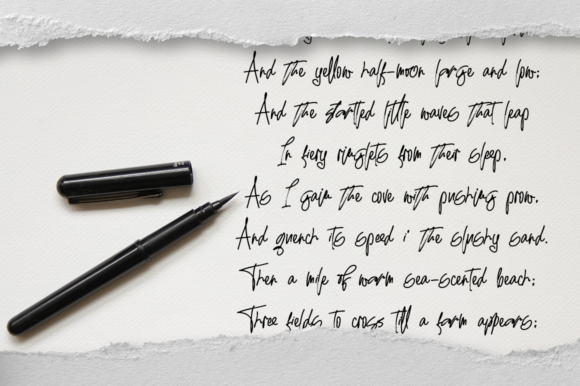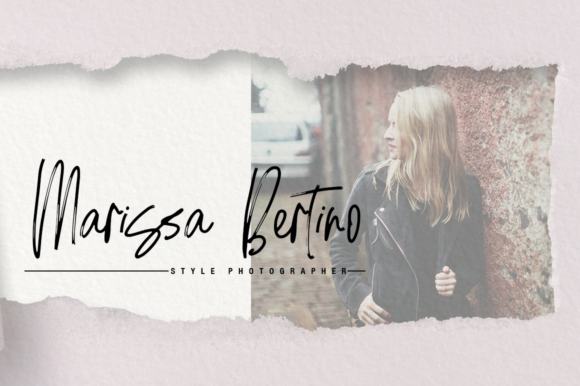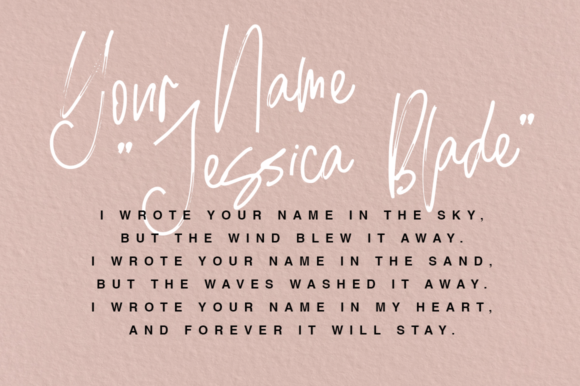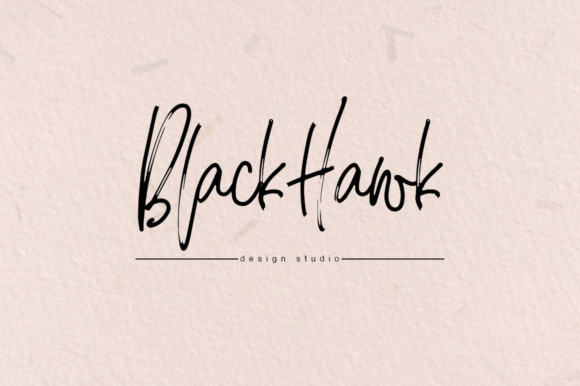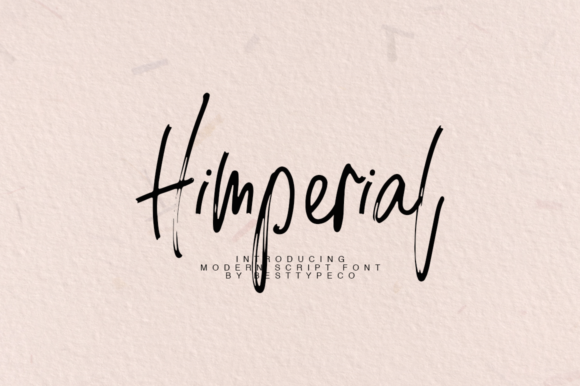
Introduction to Himperial Font
As a designer, there’s nothing quite like the thrill of discovering a new font that perfectly captures the essence of your creative vision. For me, that moment came when I stumbled upon the Himperial Font – a light and breezy handwritten font with a unique charm that instantly spoke to my soul.
There’s something special about the organic feel of Himperial Font that makes it an instant favorite among designers. Whether you’re working on a high-quality design project or just need a reliable design resource, this font is sure to impress. With its transparent background and smooth lines, it’s perfect for creating visually appealing graphics, logos, and typography that stand out from the crowd.
Key Features of Himperial Font
- Unique, modern design with a transparent background for versatility
- Perfect for digital and print projects, including logos, branding, and more
- Includes a comprehensive character set, including uppercase and lowercase letters, numbers, and punctuation
- Supports multilingual typography, making it suitable for international creative projects
Honest Review: Himperial Font
As a designer, I’m always on the lookout for high-quality design resources to elevate my creative projects. Recently, I stumbled upon the Himperial Font, and I’m excited to share my honest review with you.
Here’s what I love about the Himperial Font:
- ✨ Elegant and sophisticated design aesthetic
- ✨ Versatile and suitable for a wide range of creative projects
- ⚠️ Limited character set and font styles
Himperial Font is commonly used in:
- Website headers and footers